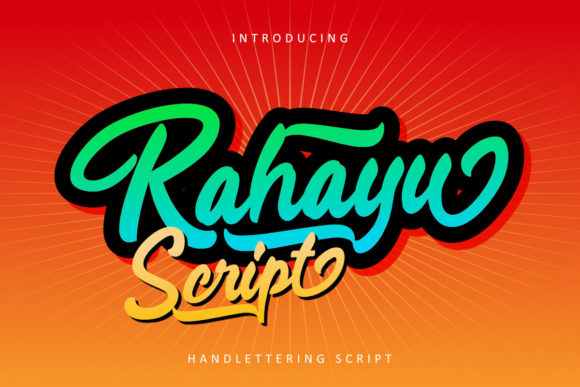
Rahayu Script Font
Prepare to be captivated by Rahayu Script, a striking script font that exudes boldness and grace. Its hand-lettering style dances across your designs with an undeniable flair, adding a touch of sophistication to any project.
Indulge in the dynamic nature of Rahayu Script. Its dramatic movements create a visual symphony that's sure to leave a lasting impression. Picture your words dancing across the screen or gracing your print projects with a captivating allure.
With Rahayu Script, you're not just downloading a font; you're acquiring a creative tool that sparks imagination and fuels your artistic endeavors. Whether you're a seasoned designer or just starting your creative journey, this remarkable font is your perfect companion.
Rahayu Script finds its home in a variety of design landscapes. Enchant your branding with a touch of uniqueness, let your social media posts radiate personality, or craft invitations that exude elegance. Its versatility knows no bounds, making it an indispensable addition to your design arsenal.
Experience the transformative power of Rahayu Script and elevate your designs to new heights. Embrace its contemporary coolness and let your creativity soar. Dare to be different and make a statement with every word you type.